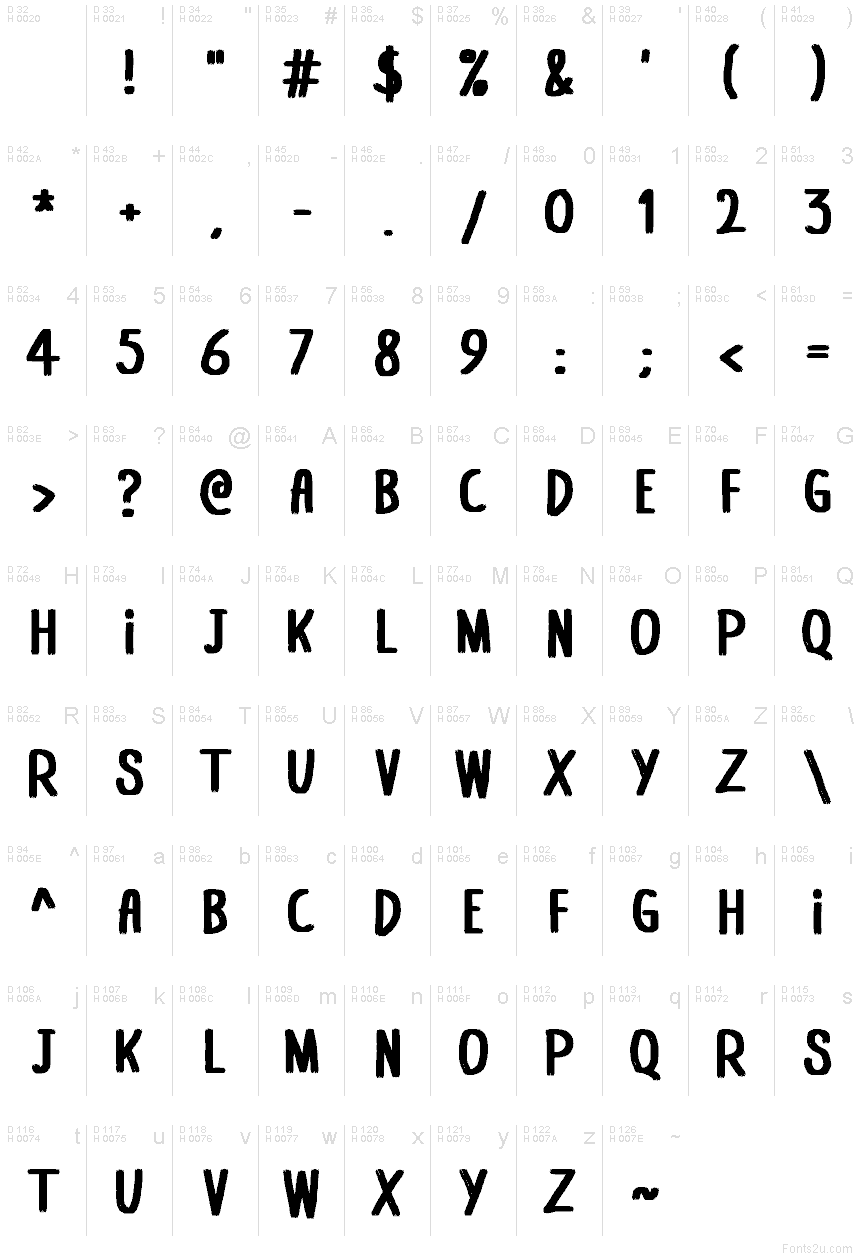
Drybrush
Drybrush font by GGBotNet is a free bold brush display font. Built on tall, rounded shapes, it layers inky, dry-bristle streaks over solid forms, giving each letter a tactile, hand-dragged edge without sacrificing legibility. The rhythm stays steady and upright, with generous counters and a slightly compressed stance that reads fast while still feeling raw and human.
Using Drybrush, headlines snap with energy—great for posters, gig flyers, streetwear graphics, cafe menus, craft labels, and YouTube thumbnails. This free font brings grit without chaos, so you can scale it big and keep it clean. Pair with a plain, neutral sans for body copy to let the textured strokes take center stage.